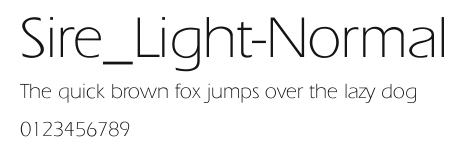
• Font Name: Sire_Light-Normal
• Full Font Name: Sire_Light-Normal
• PostScript Name: Sire_Light-Normal
About Sire_Light-Normal.ttf
Sire_Light-Normal.ttf is a modern, elegant sans-serif font designed for ultimate readability and visual harmony. Perfect for branding, headlines, web design, and print materials.